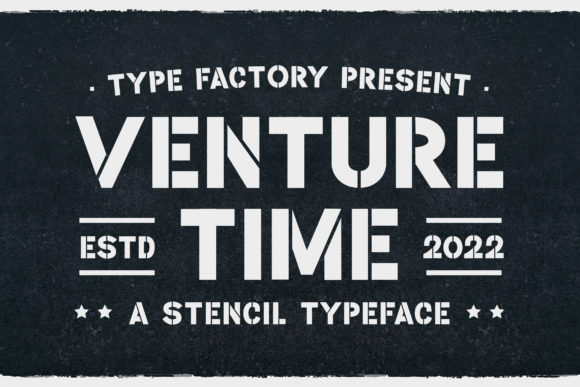
Venture into the realm of captivating typography with Venture Time Font, a modern and clean stencil display font that oozes sophistication and style. This masterpiece from TypeFactory is more than just a font; it's an artistic gateway that unlocks endless possibilities for your creative endeavors.
With its crisp edges and sharp lines, Venture Time Font exudes a boldness that commands attention. Its versatility knows no bounds, effortlessly adapting to a myriad of design projects. Whether you're crafting posters that demand attention, designing logos that leave a lasting impression, or creating packaging that captivates customers, Venture Time Font is your trusted companion.
As you embark on your design journey, let Venture Time Font be your muse. Its meticulously crafted stencil style lends an air of elegance to invitations, adding a touch of exclusivity to your special occasions. Transform your website titles into captivating headlines that draw visitors in, enticing them to explore the depths of your digital realm. Venture Time Font's clean lines and modern aesthetic make it the perfect choice for restaurant menus, effortlessly enhancing the dining experience with its understated charm.
Unleash your creativity and explore the endless variations that Venture Time Font offers. Its versatility allows you to experiment with different pairings, creating unique combinations that reflect your artistic vision. Discover the joy of designing with a font that adapts seamlessly to your every whim, bringing your ideas to life with remarkable clarity and precision.
With Venture Time Font, you'll elevate your designs to new heights. Its versatility and modern appeal make it the perfect choice for those seeking a typography experience that's both visually stunning and functionally flawless. Dive into the world of Venture Time Font and unlock the door to creative brilliance.